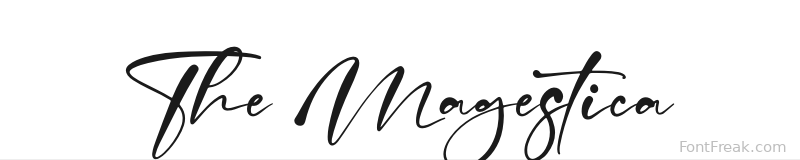
The Magestica
The Magestica is a beautifully crafted script font designed by Perspectype Studio in 2021, making it a delightful addition to any typography collection. This font is characterized by its elegant curves and flowing strokes, which add a touch of sophistication to any design. The stroke weight is varied, providing a graceful contrast that enhances its artistic flair. The spacing is well-balanced, allowing for readability while maintaining the font's decorative essence. The Magestica features delicate flourishes that lend an air of refinement and charm, making it perfect for projects that require a touch of luxury.
This versatile font is ideal for a range of applications, including wedding invitations that demand an elegant presentation, movie posters that require a striking visual appeal, and restaurant menus that aim to convey a sense of style and taste. It is also suitable for branding projects, where a distinctive and memorable typeface can help convey a brand's identity. The Magestica can cater to graphic designers looking to elevate their work, small business owners wanting to create eye-catching promotional materials, and content creators seeking to enhance their visual storytelling.
What sets The Magestica apart is its unique blend of elegance and versatility. Its graceful curves and stylish details make it stand out in a crowded font landscape, while its availability as a freeware option allows greater accessibility for those looking to enhance their design projects without breaking the bank. The Magestica font free download enables users to incorporate this stunning typeface into their work effortlessly, making it a must-have for anyone aiming to create visually striking and memorable designs.